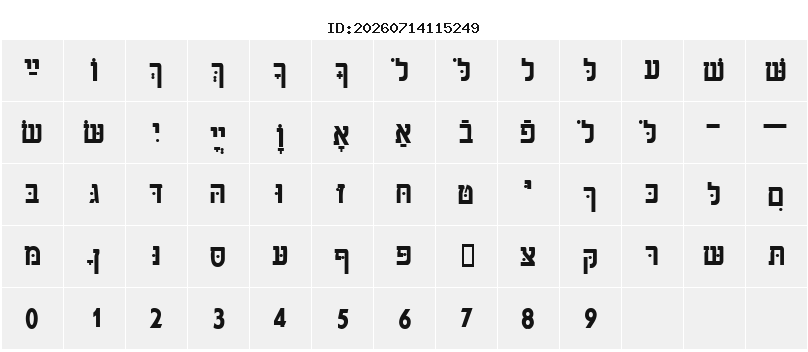
HebrewAaronSSK Preview
• Font Name: HebrewAaronSSK
• Font ID: Macromedia Fontographer 4.1 HebrewAaronSSK Bold
• Full Font Name: HebrewAaronSSK Bold
• Version: Macromedia Fontographer 4.1 8/15/95
• PostScript Name: HebrewAaronSSKBold
• Character Count: 216
About HebrewAaronSSK.ttf
HebrewAaronSSK.ttf is a modern, elegant sans-serif font designed for ultimate readability and visual harmony. Perfect for branding, headlines, web design, and print materials.